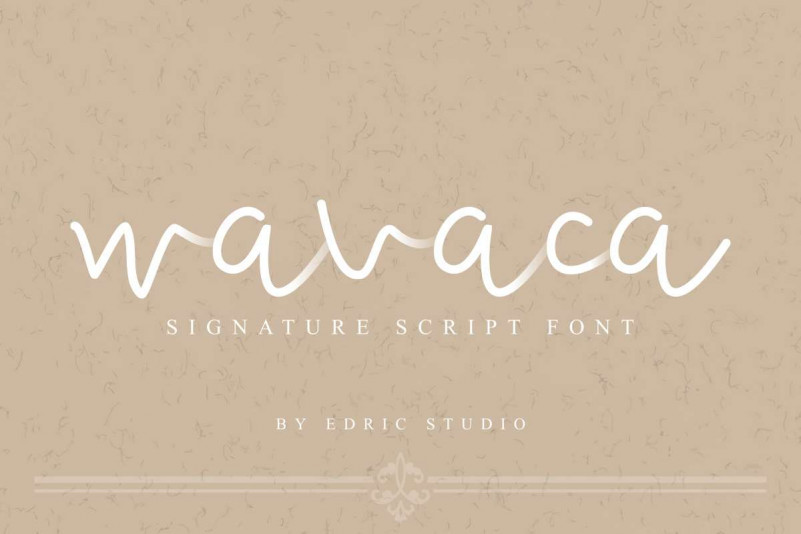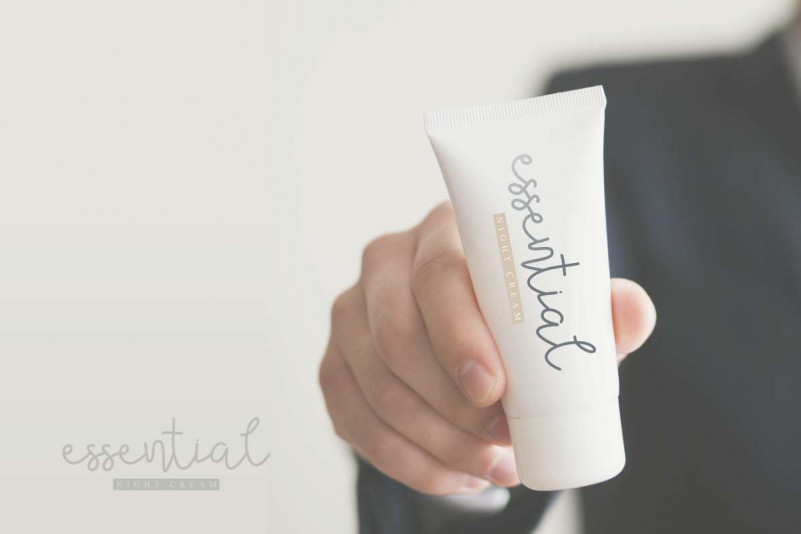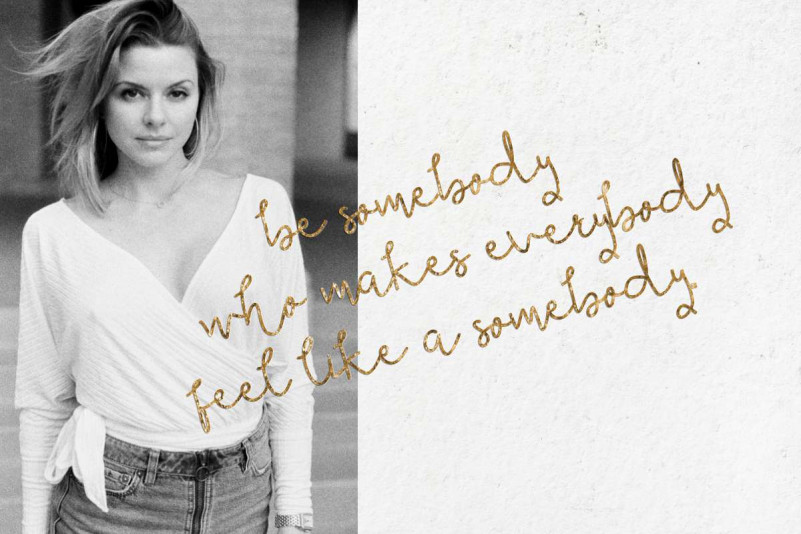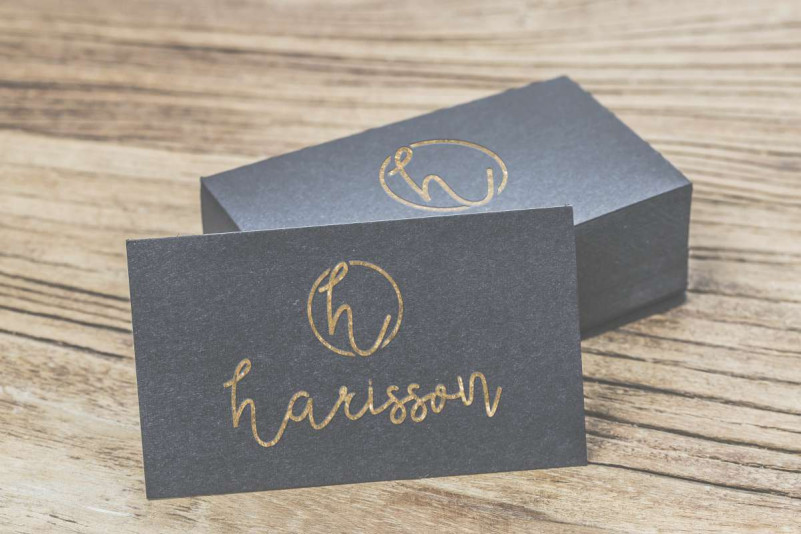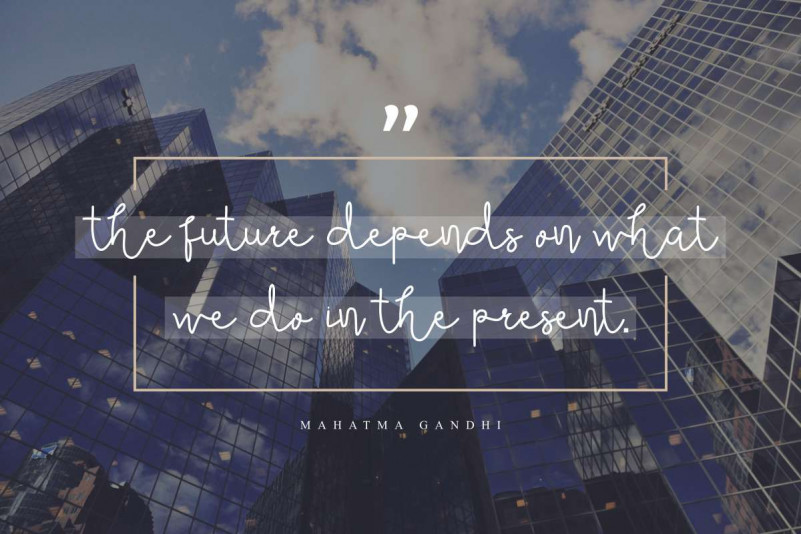
Wavaca Script Font
Introducing our new font : Wavaca Script Font This font was handcrafted with love in Bandung and Garut – Indonesia. The artists of this font are : Saila and Suci. This is a script duo with two styles : regular and italic. Both of the styles are in handwriting mood. Wavaca Script Font comes with many international languages characters glyphs. This font will suits many projects categories : (with extended license) Logo type, flyer, stationery, business card, signage, flyer, brochure etc. With your creativity, there’s no limit using with this font.